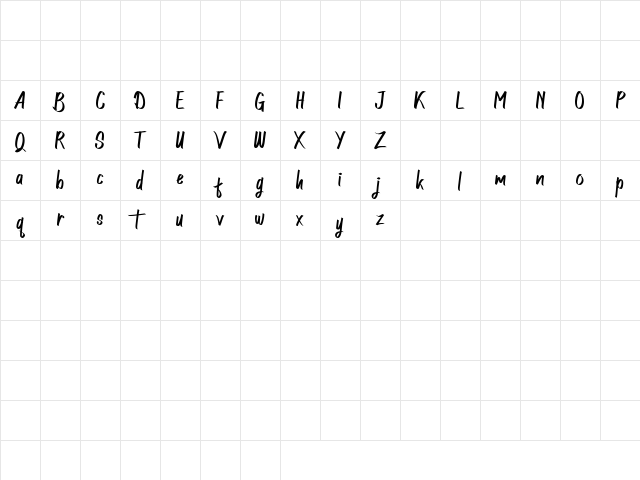
Northingtown is a composed and adaptable typeface that performs quietly and consistently across a wide range of design contexts. Its slender proportions lend an understated elegance to any composition.